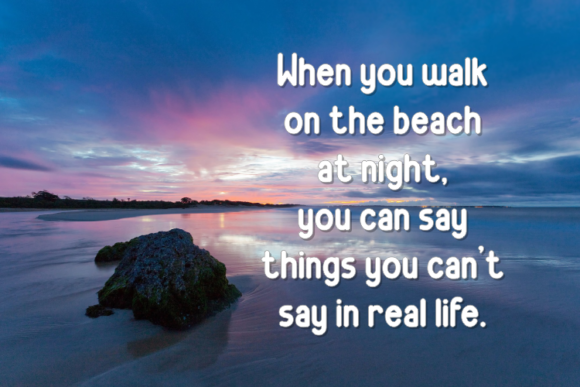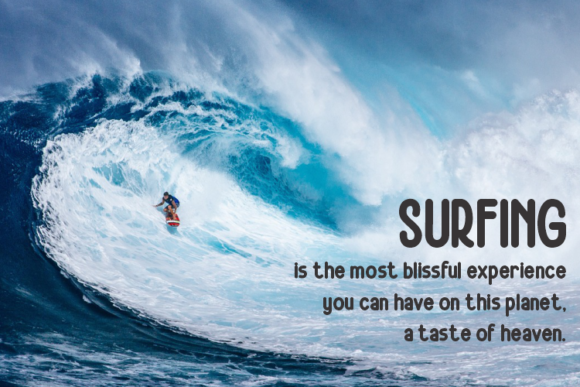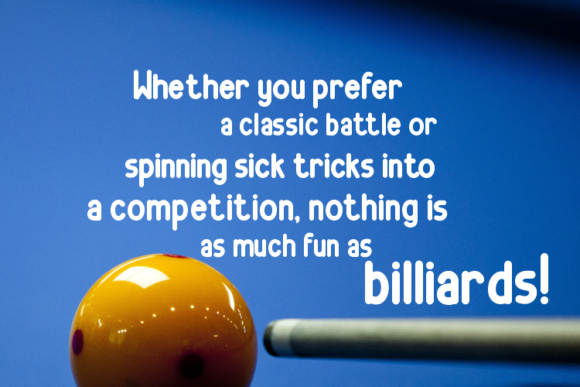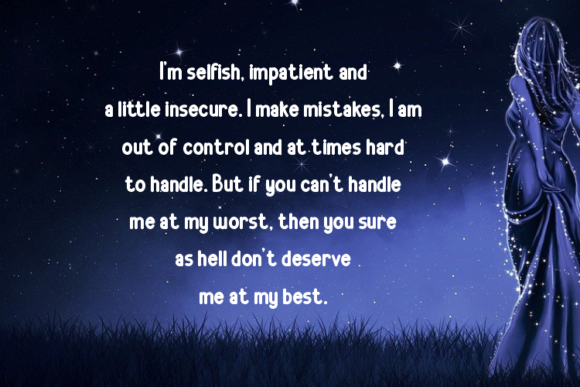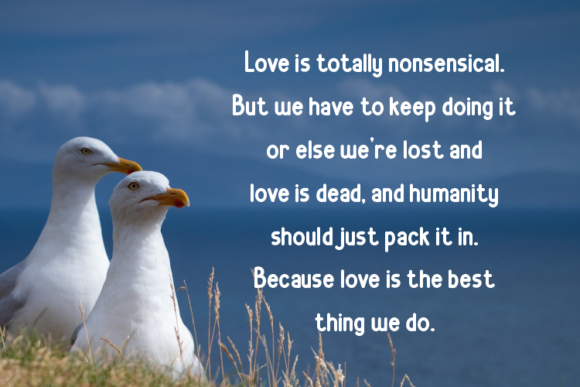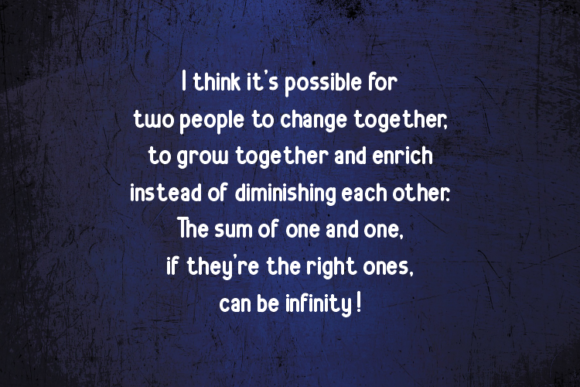
Introduction to Parama Font
Have you ever been stuck in front of your design software, staring blankly at a blank canvas, trying to find the perfect font to bring your creative project to life? That’s exactly where I was when I discovered the Parama Font – a game-changer for designers and a must-have resource for any design project.
Parama Font is a stunning sans serif font that boasts a clean, cute, and paint-brushed aesthetic. Its versatility and high quality make it an ideal choice for posters, flyers, and prints. With its transparent background and seamless integration with various design tools, you can unleash your creativity and explore the endless possibilities of this amazing font.
Key Features of Parama Font
- High-quality design resource ideal for creative projects, offering a unique and elegant aesthetic.
- Features a transparent background, allowing for seamless integration into designs with complex backgrounds.
- Available in multiple sizes and resolutions, ensuring versatility for use in various creative projects.
- Parama Font is designed to be highly legible and visually appealing, making it suitable for both print and digital designs.
Honest Review: Parama Font
Here’s what I like about the Parama Font:
- ✨ Versatility: The font offers a range of styles, from elegant to modern, making it suitable for various design projects.
- ✨ High-quality design: The font is well-crafted, with clear lines and a professional look.
- ✨ Transparency: The font comes with a transparent background, allowing for easy integration with other design elements.
- ⚠️ Limited language support: The font may not support all languages, which could be a concern for global design projects.
- ⚠️ No bold weights: The font lacks bold weights, which might limit its use in certain design contexts.
Overall, the Parama Font is a solid choice for designers looking for a free, high-quality font for their creative projects. While it may have some limitations, its versatility and professional design make it a valuable addition to any design resource collection.
Common Use Cases for Parama Font
The Parama Font is suitable for a wide range of creative projects, including branding, marketing materials, and digital art. Its high-quality design and customization options make it an excellent choice for designers and artists.